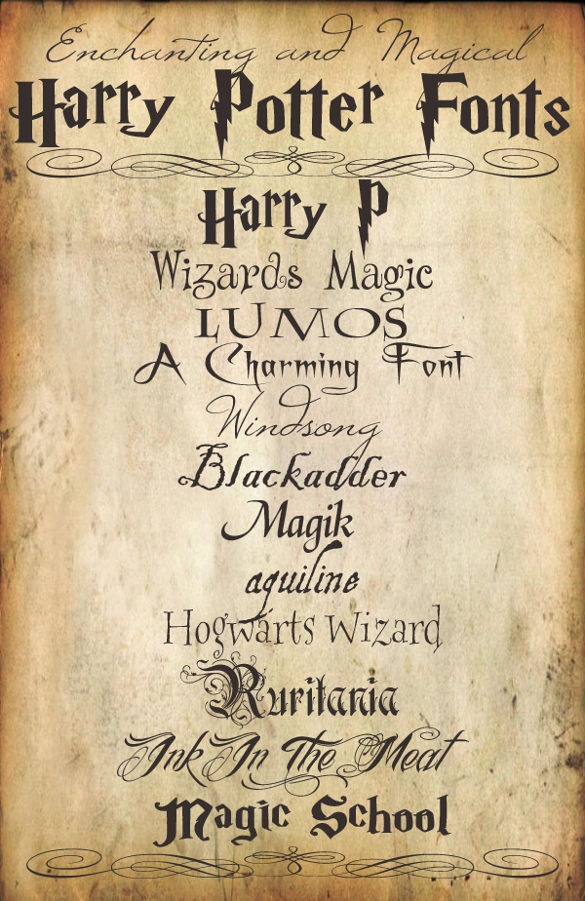
What Is The Harry Potter Font Called In Word
What Is The Harry Potter Font Called In Word. Dingbats is a really cool font. The free harry potter font is called harry p and was created by an artist named graham meade with phoenix phonts, based in australia.
Cochin is free for personal use on a number of platforms, including the macos. It includes some additional symbols such as the golden snitch and a broom. Maybe the most traditional of the harry potter fonts on our list, parry hotter is released as shareware for everyone’s enjoyment.
The Book Tells The Adventure Story Of Young Wizard Harry Potter With His Friends At Witchcraft And Wizardry School.
Together, they invite the reader to discover a. The font and font size are different in certain versions and translations into different languages will effect word lengths. Mimicking the hp movie post font.
The free harry potter font is called “harry p” and was created by an artist named graham meade with phoenix phonts, based in australia. The seven books cover his adventures not only in the hogwarts school of magic, but also how he battles evil. Inkpot, like the name suggests, is a font inspired by ink and quill handwriting.